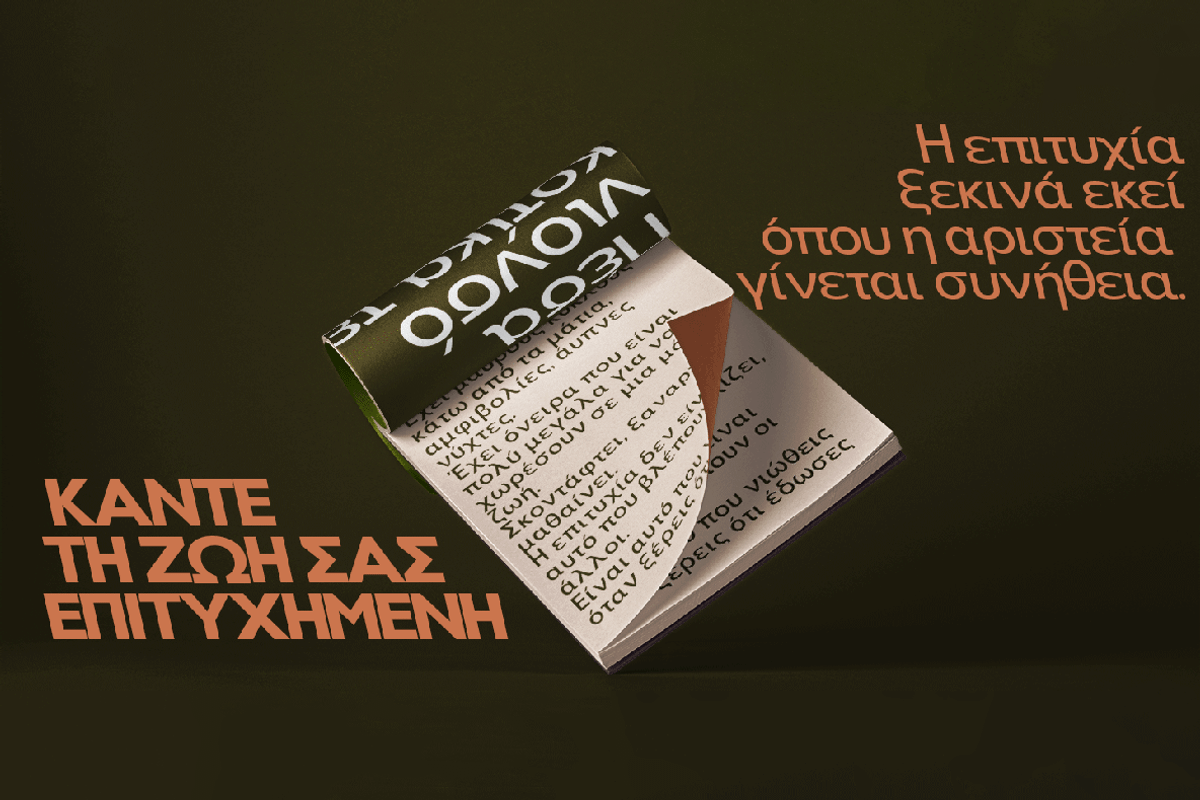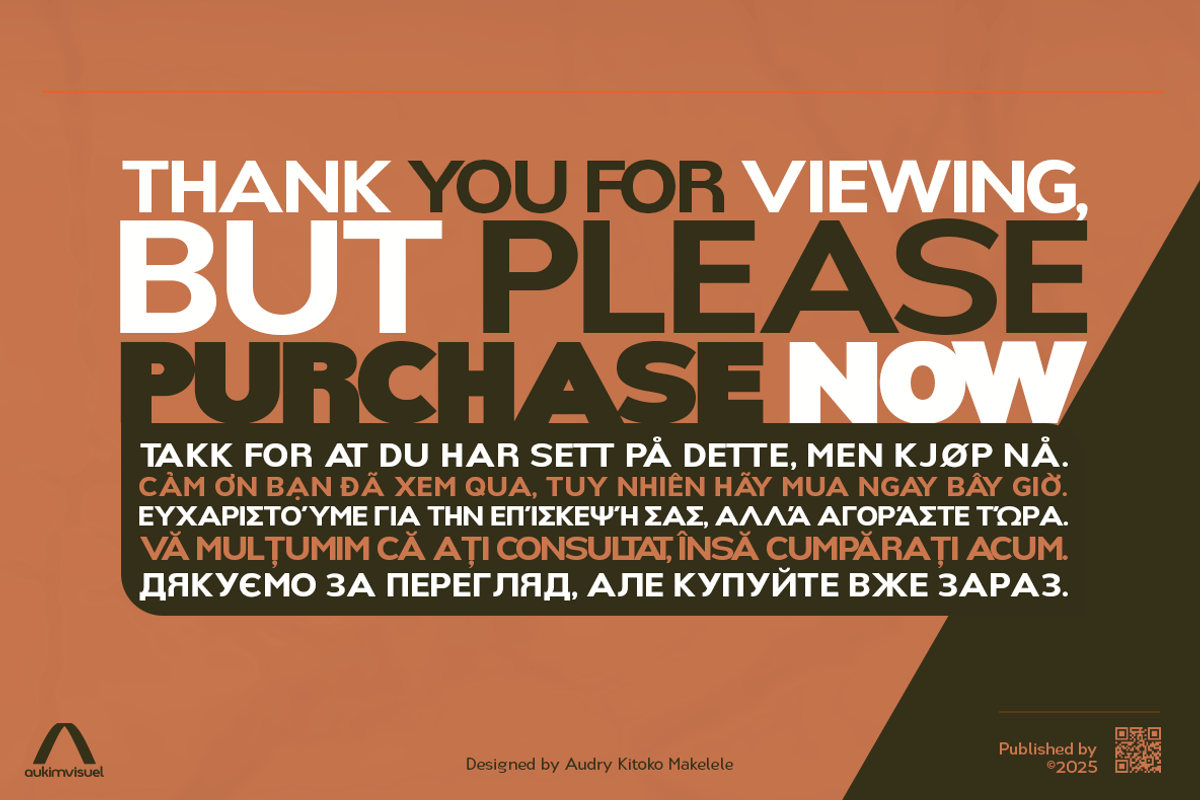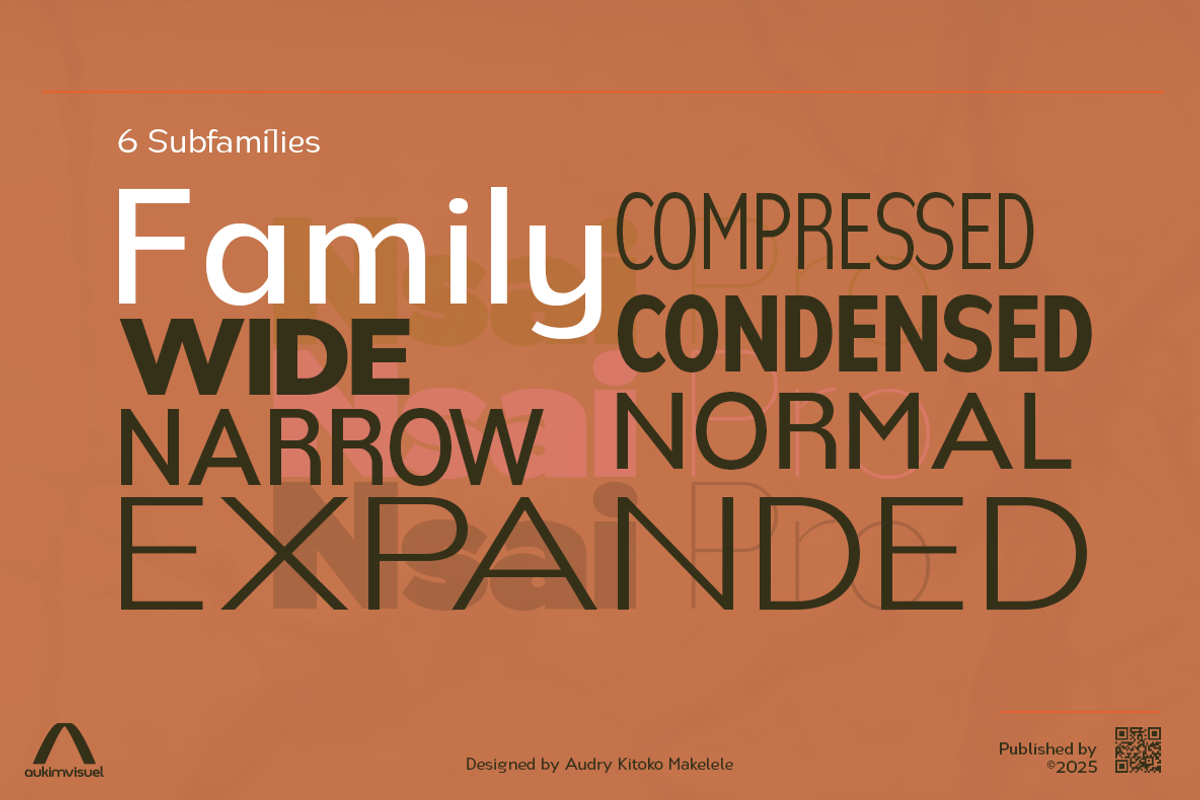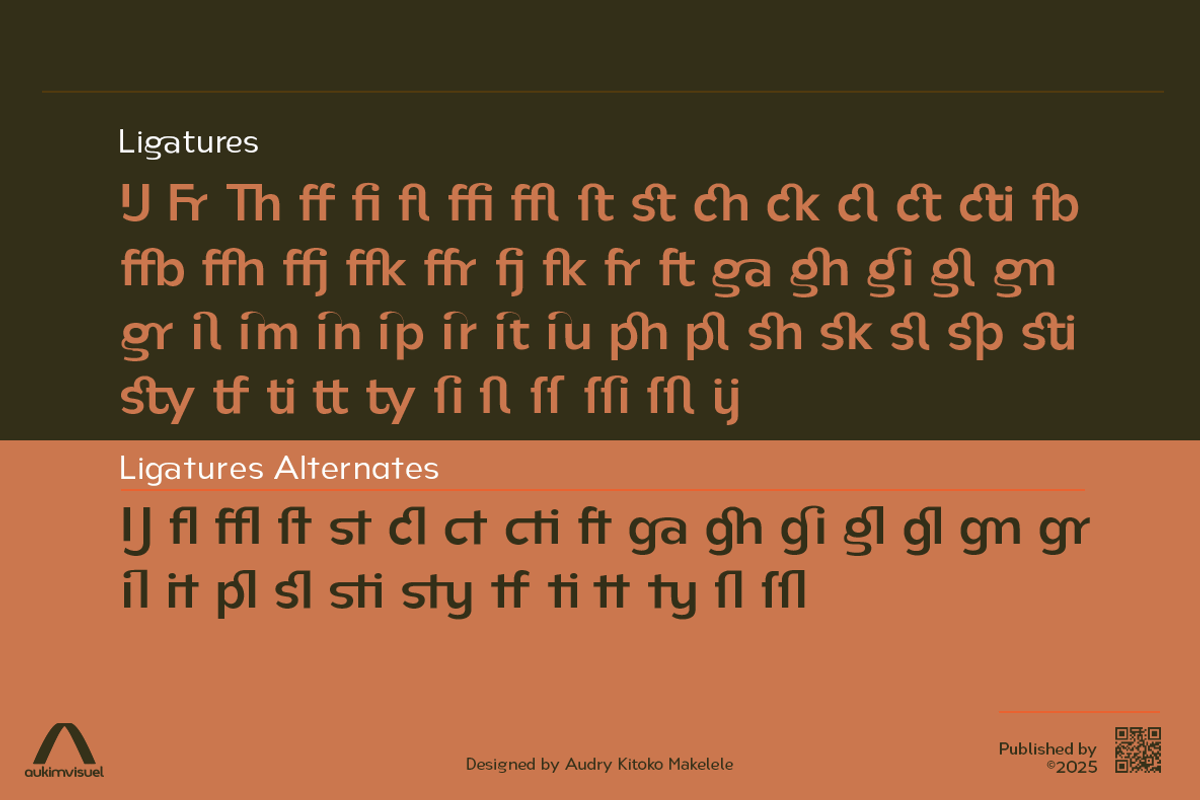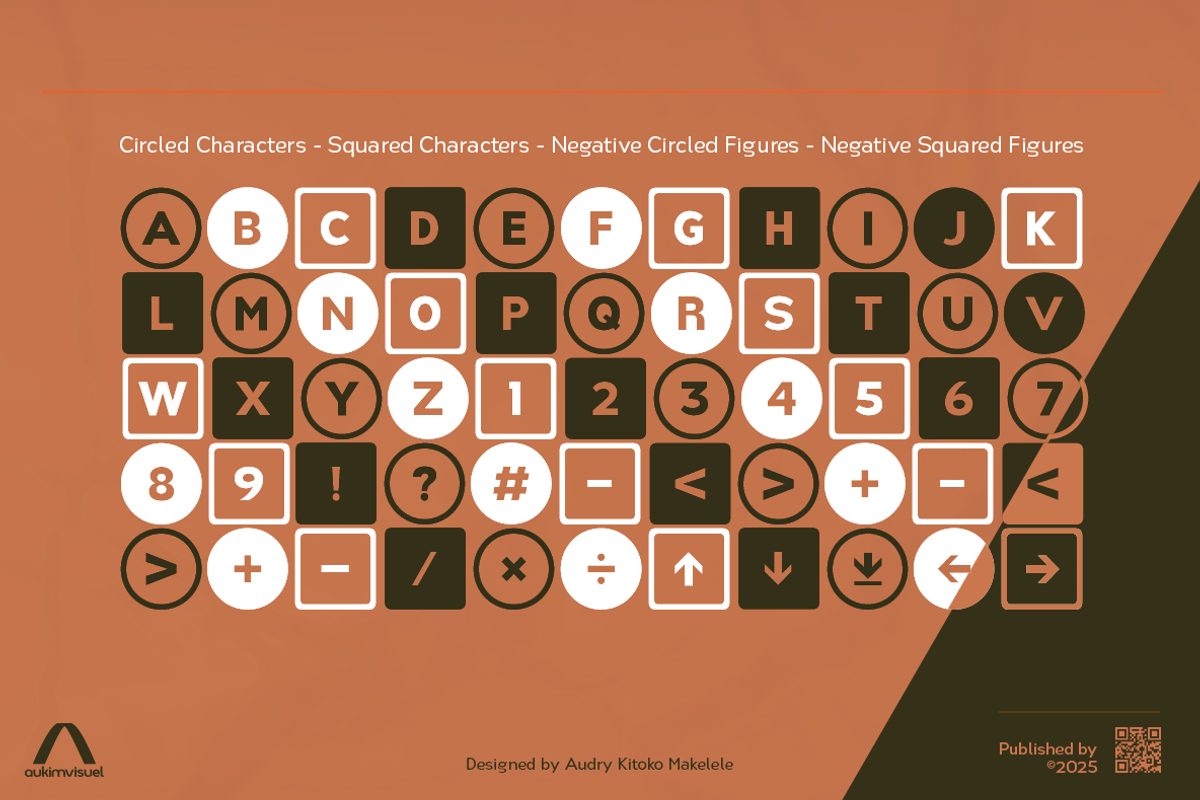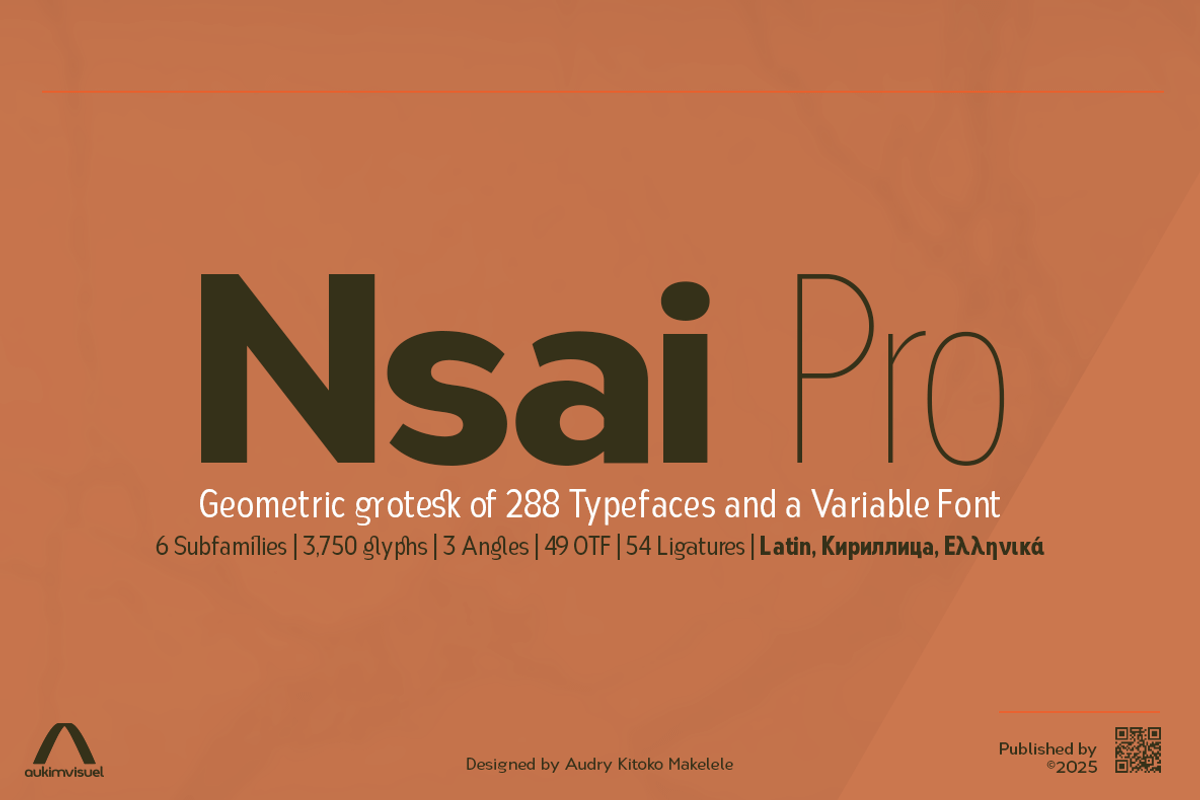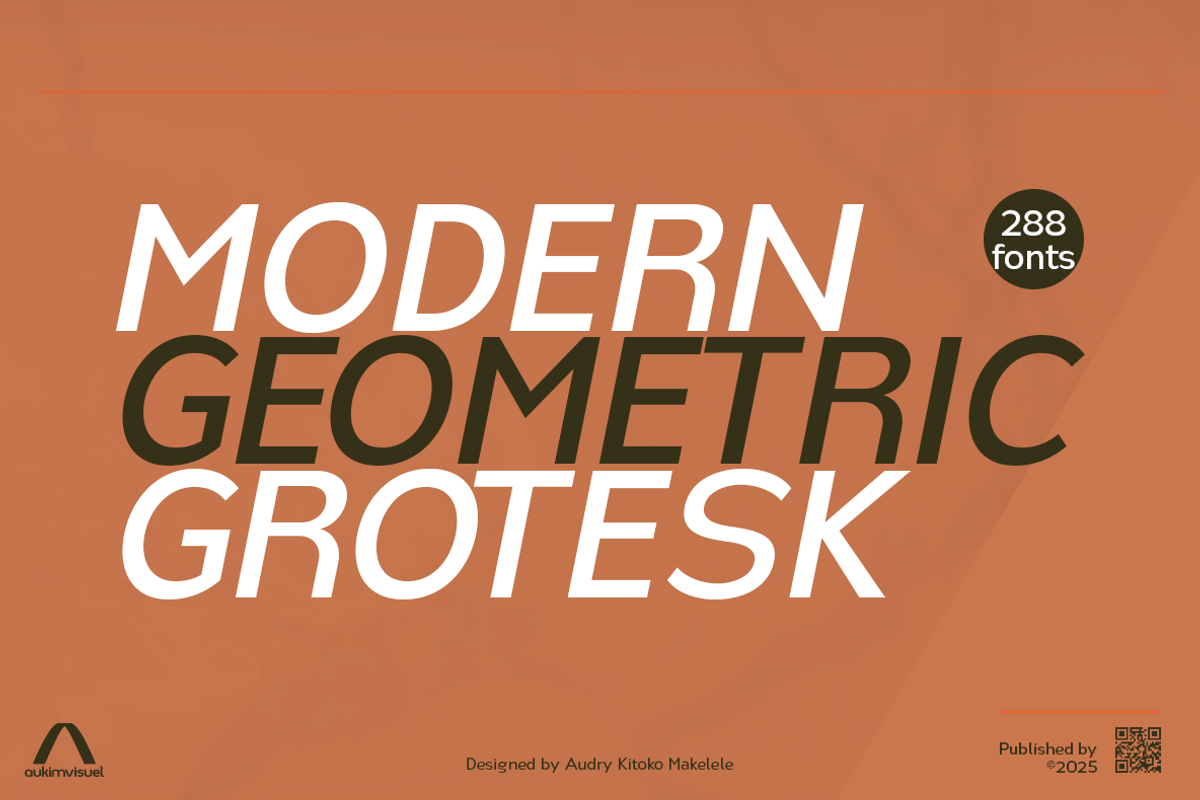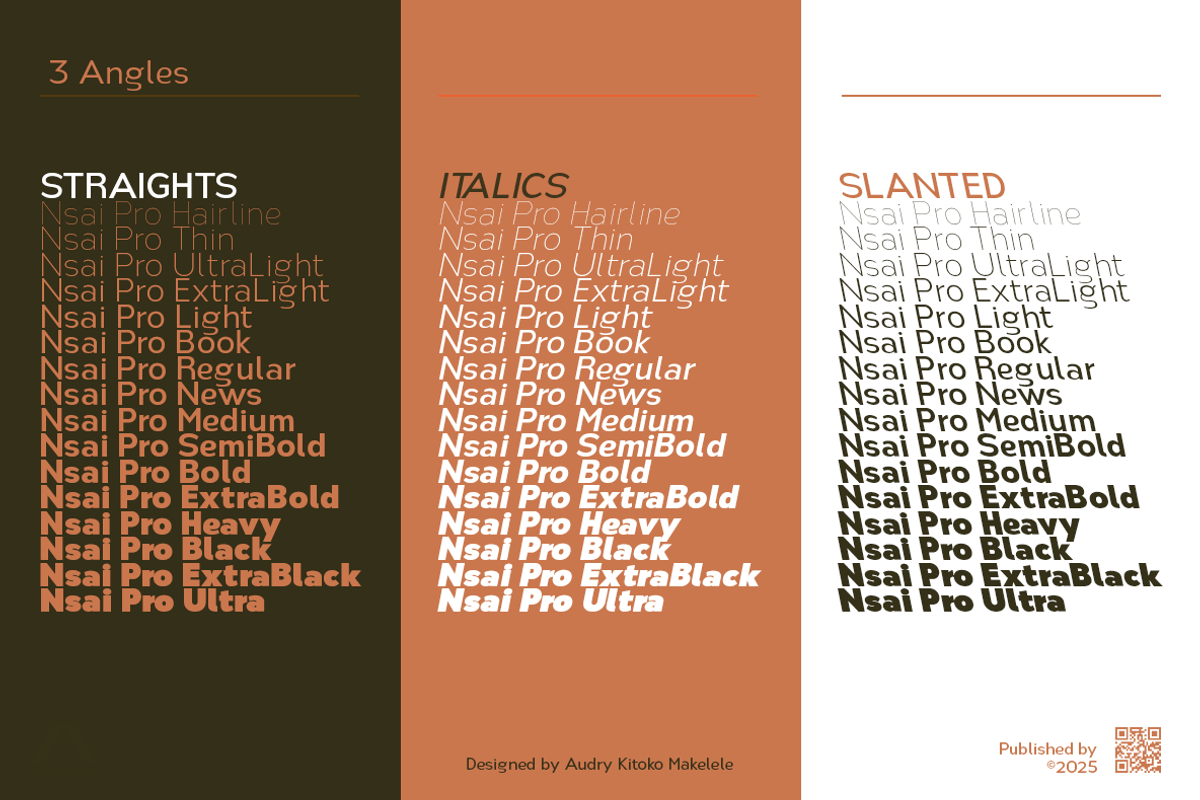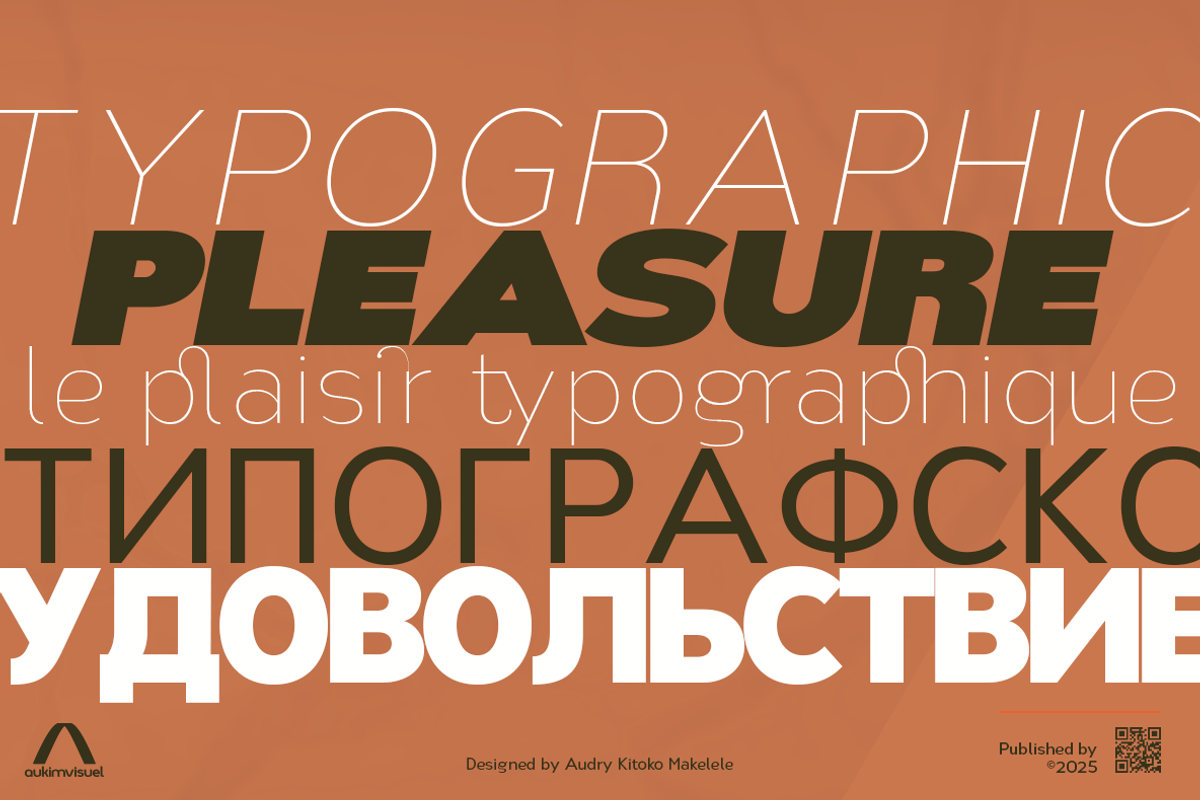
Nsai Pro Condensed
Nsai Pro embodies the typographic culmination of an ambitious vision: to unite aesthetic finesse, technical performance and linguistic openness in a single typeface family. Based on the original Nsai Font design, this new version amplifies its qualities with unrivalled structural richness and versatility for the most demanding graphic environments. Every curve is refined, every detail carefully calibrated to ensure both legibility and visual presence.
At the heart of the project is a graphic infrastructure of 3,750 glyphs, covering an exceptional range of writing systems. The Latin alphabet is expressed in all its nuances - from basic characters to advanced and phonetic IPA extensions. Cyrillic and Greek are displayed in their contemporary, extended and historical forms. The presence of Nko and Coptic scripts adds a strong intercultural dimension, responding to the challenges of typographic diversity. Roman numerals, universal currency symbols, pictograms and signage are all integrated with precision and consistency.
The strength of Nsai Pro also lies in its particularly rich OpenType architecture. No fewer than 49 advanced functionalities enrich the typographic experience: alternative stylistic sets, contextual and discretionary ligatures, sensitive capitals, regional variants, small caps, fractions, superscripts, scientific indicators, tabular and proportional numbers... Each function is designed to meet precise needs, whether for a scholarly publication, interface design or distinctive visual identity.
Subtlety extends to ligatures, with 54 carefully designed combinations to make reading more fluid and enhance the aesthetics of the text. They range from classic liaisons to historical and discretionary forms, offering the user an expressive palette of rare finesse.
Structurally, Nsai Pro stands out for its exceptional modularity. The family offers 6 widths - Compressed, Condensed, Narrow, Regular, Wide and Expanded - enabling perfect adaptation to the constraints of typographic space. Whether you're looking to maximize the economy of a dense text or to deploy an ample, breathable composition, each width retains the balance and coherence of the original design.
This flexibility is complemented by sixteen weights, from Hairline to Ultra, each offering a subtle variation in contrast and mass. This meticulous scaling gives the typographer greater control over hierarchical levels and visual effects, while guaranteeing impeccable consistency across all styles.
Nsai Pro is much more than a typographic family: it's a creative tool designed for demanding professionals, publishers, designers and creative types in search of character and amplitude. Its ability to cross languages, eras and media makes it a reliable companion for the most daring projects. It transforms every word into a graphic imprint, every paragraph into a visual statement, with rigor, elegance and boldness.